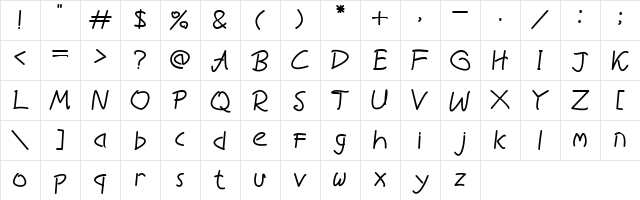
Complete BelovedJourney Regular glyph index. Displaying only characters natively supported by BelovedJourney Regular font.
BelovedJourney is a composed and adaptable typeface that performs quietly and consistently across a wide range of design contexts.